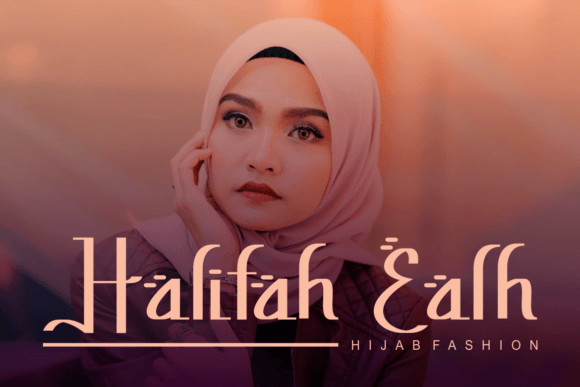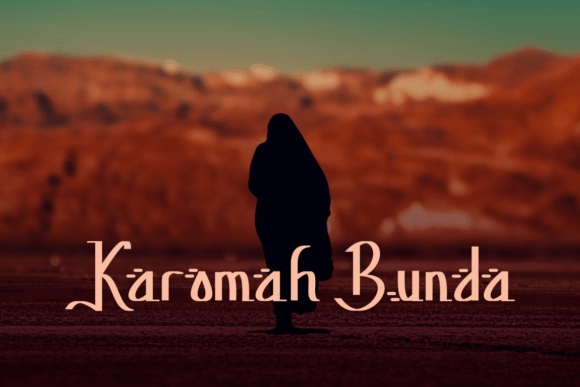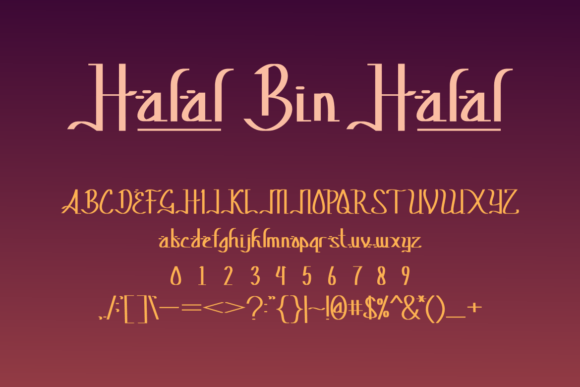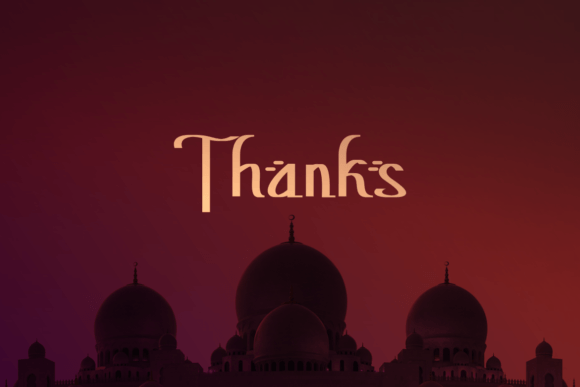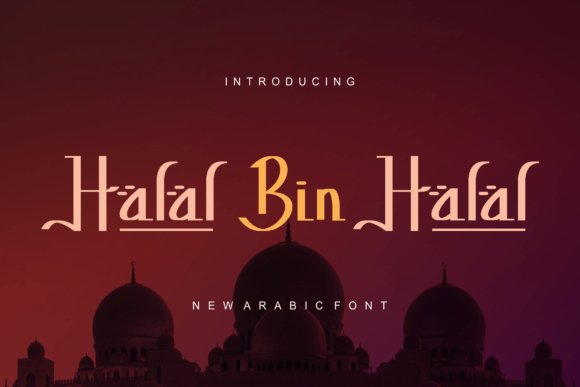
Introducing HalalBinHalal Font: The Modern Display Font for Bold Designs
In the world of design, fonts play a crucial role in conveying the message and aesthetic of a brand. For designers and crafters looking for a bold and authentic display font, we are excited to introduce the HalalBinHalal Font. This modern font is designed to make a statement and is suitable for a wide range of branding projects, from logos and t-shirt printing to esport designs and more.
What Makes HalalBinHalal Font Stand Out?
The HalalBinHalal Font is a bold and authentic display font that is designed to be versatile and adaptable. Its unique design makes it stand out in a wide range of contexts, from digital platforms to print materials. Here are some key features that make this font a must-have for designers and crafters:
- Bold and Authentic: The HalalBinHalal Font has a bold and authentic design that is sure to grab attention. Its unique style makes it perfect for creating striking logos, headings, and titles.
- Versatile: This font is designed to be versatile and can be used in a wide range of branding projects, from logos and t-shirt printing to esport designs and more.
- Easy to Read: Despite its bold design, the HalalBinHalal Font is easy to read, making it perfect for use in digital and print materials.
Use Cases for HalalBinHalal Font
The HalalBinHalal Font is suitable for a wide range of design projects. Here are some use cases where this font can make a big impact:
- Logo Design: The bold and authentic design of the HalalBinHalal Font makes it perfect for creating striking logos that grab attention.
- T-Shirt Printing: This font is ideal for t-shirt printing, as its bold design ensures that the text stands out on the fabric.
- Esport Designs: The HalalBinHalal Font is perfect for esport designs, such as team logos, jerseys, and social media graphics.
- Posters and Flyers: This font can be used to create eye-catching posters and flyers that grab attention.
Why Choose HalalBinHalal Font?
With so many fonts available, why choose the HalalBinHalal Font? Here are some reasons why this font stands out:
- Unique Design: The HalalBinHalal Font has a unique design that sets it apart from other fonts.
- High-Quality: This font is designed to be of high quality, ensuring that it looks great in any design project.
In conclusion, the HalalBinHalal Font is a bold and authentic display font that is perfect for designers and crafters looking for a versatile and adaptable font. Its unique design makes it stand out in a wide range of contexts, from digital platforms to print materials. With its ease of use and high-quality design, this font is a must-have for any design project.